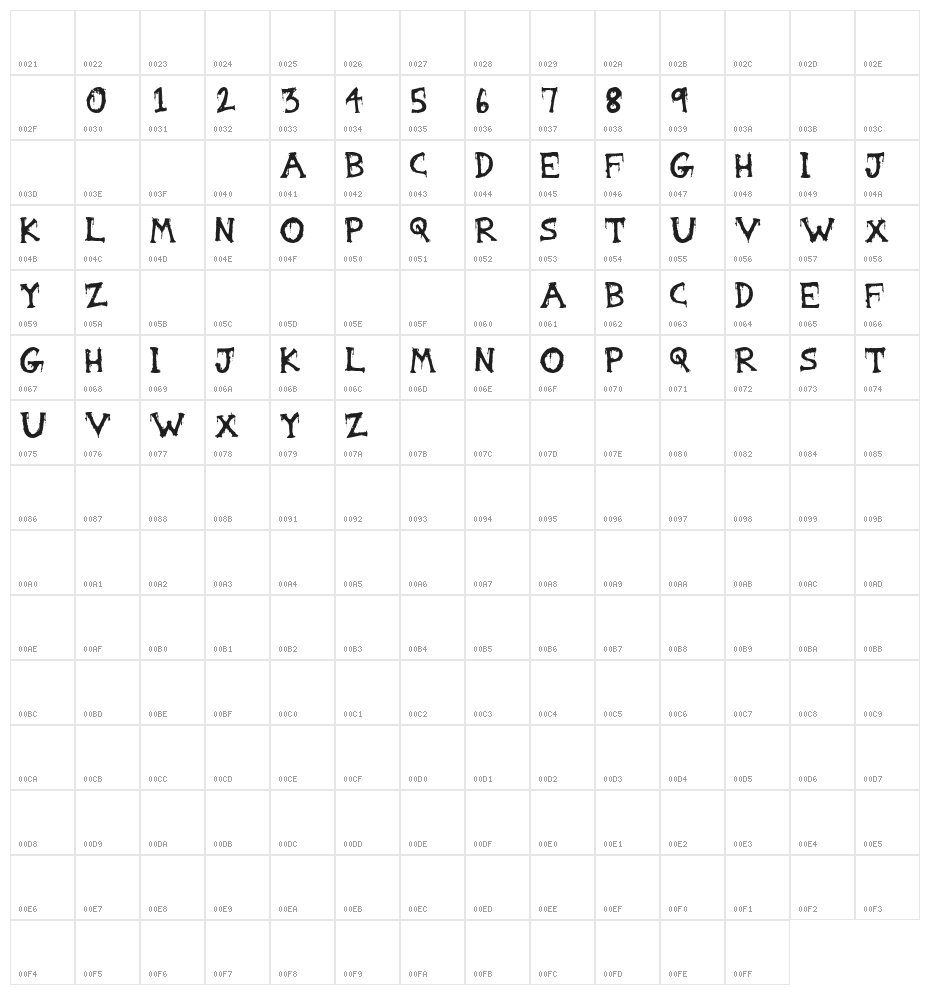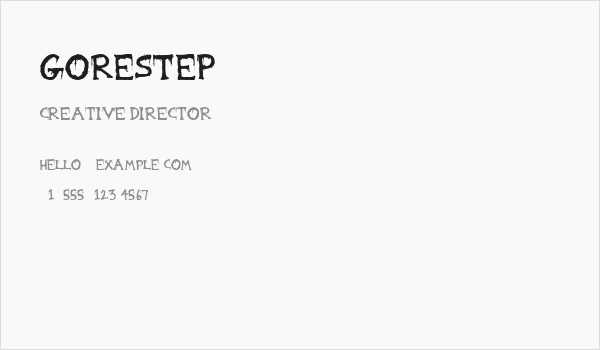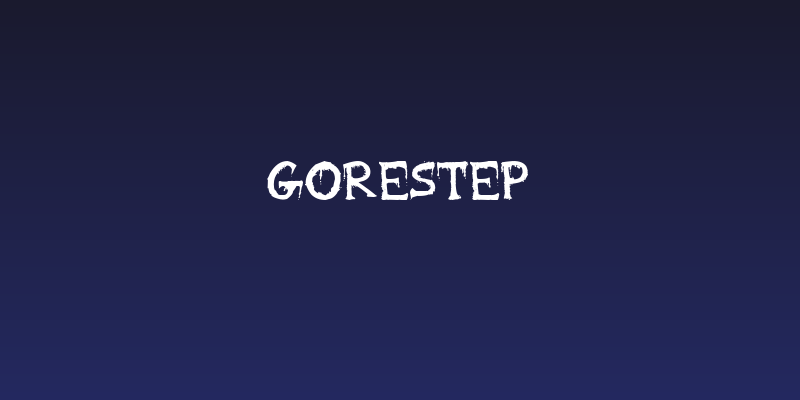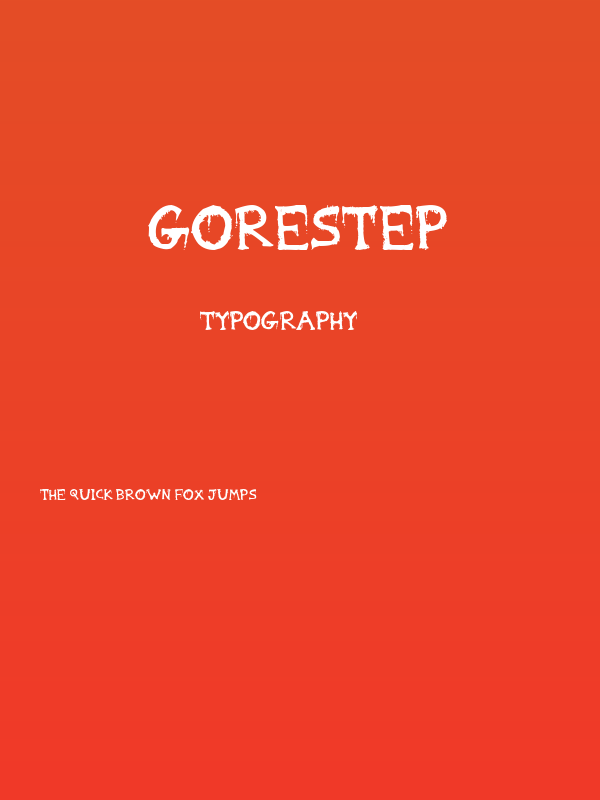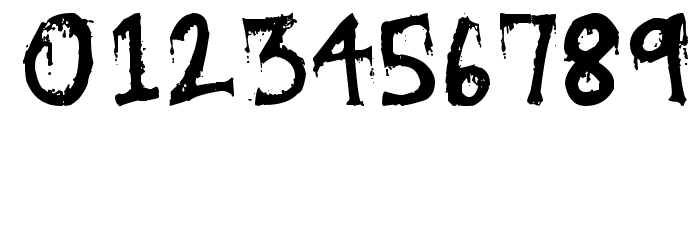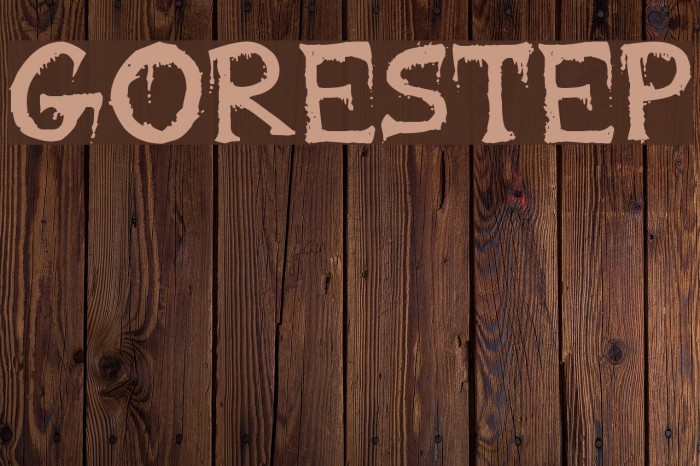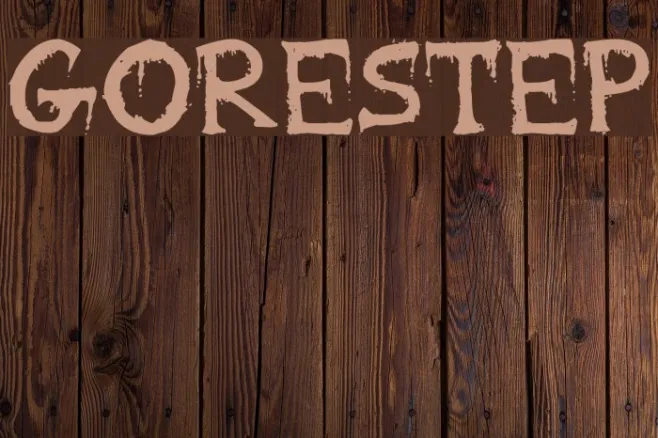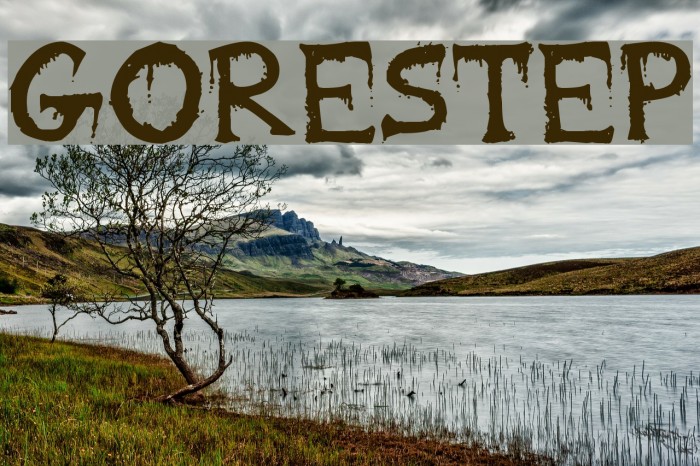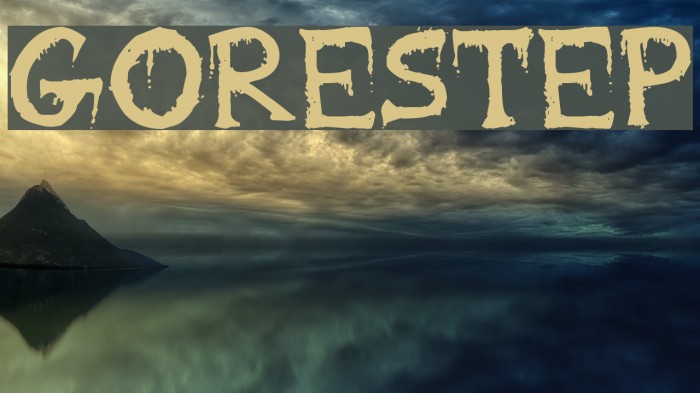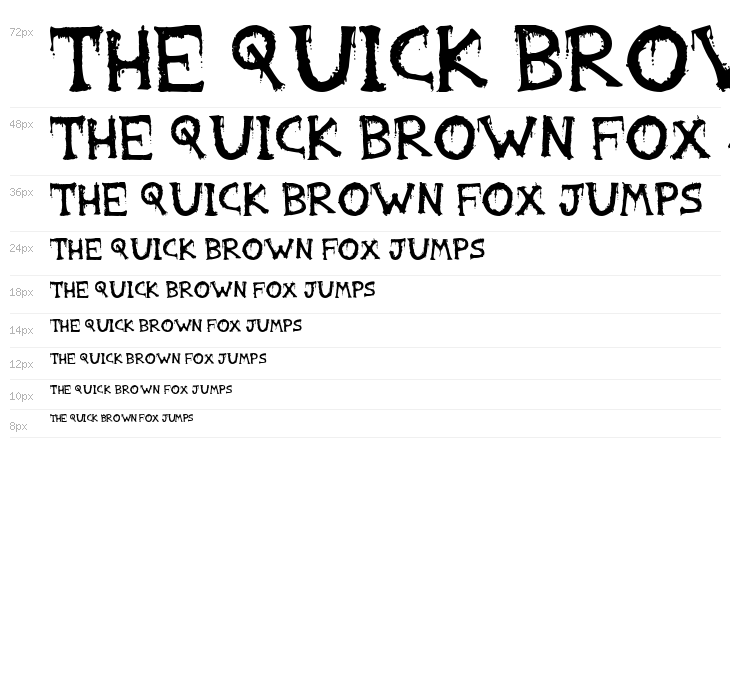
Gorestep Font
Gorestep Description
This font features a grungy, distressed style with irregular edges and a rough texture, reminiscent of horror or punk aesthetics. The characters are bold and impactful, with a hand-drawn appearance that adds to its edgy and rebellious feel. The uppercase and lowercase letters maintain a consistent style, with exaggerated serifs and uneven lines that create a sense of chaos and intensity. The numbers and special characters follow the same design principles, ensuring a cohesive look across all glyphs. This font is ideal for projects that require a dramatic and unconventional typeface.
| Proposed Projects | Album covers, horror movie posters, edgy branding, streetwear designs. |